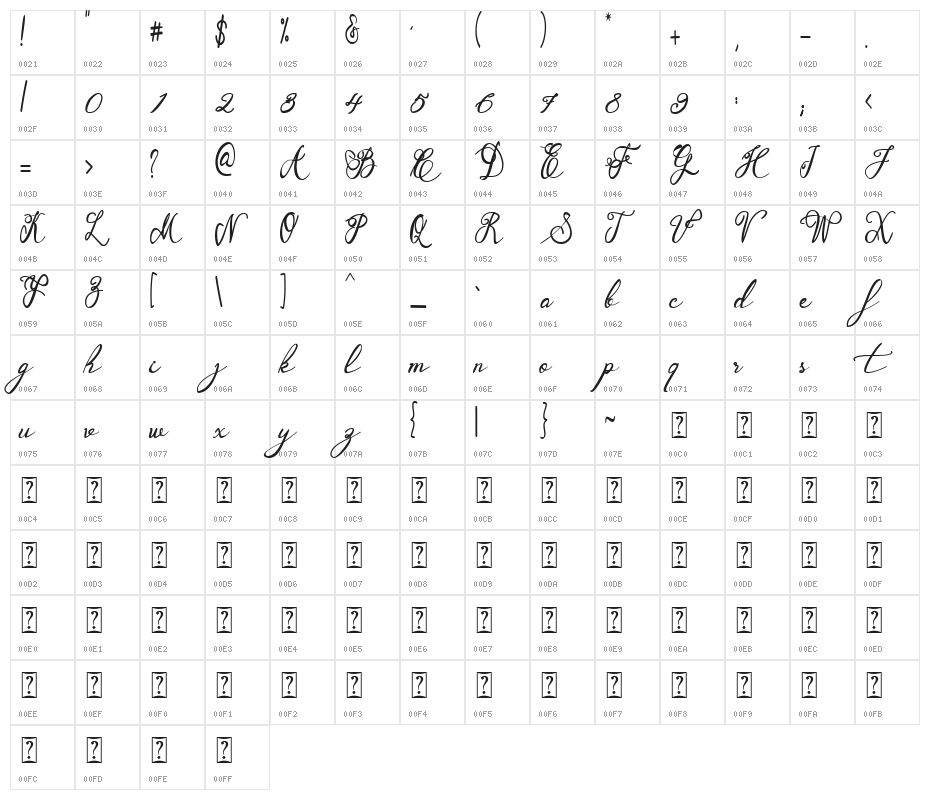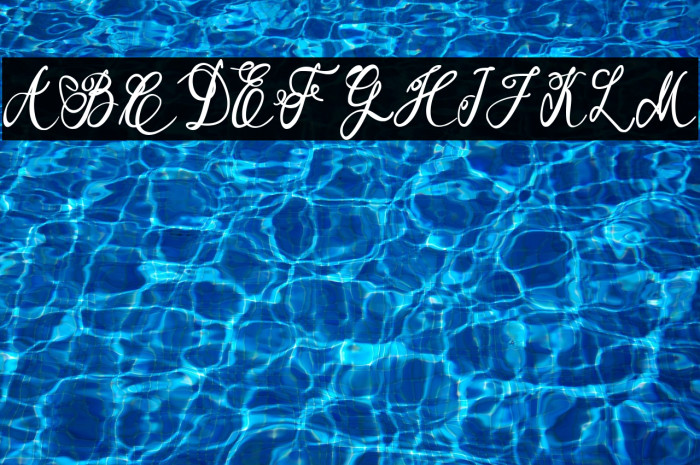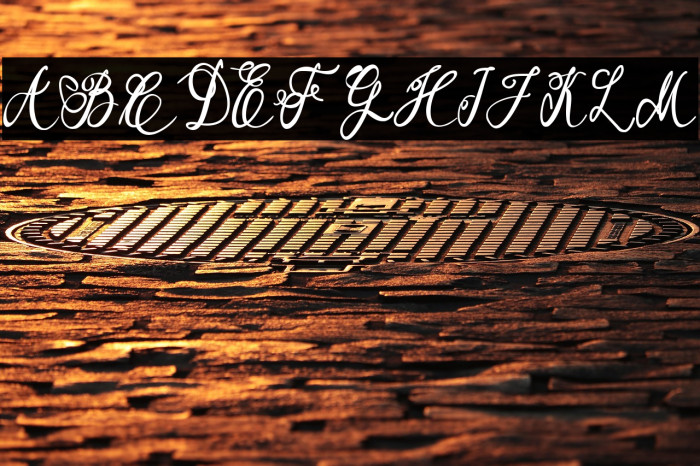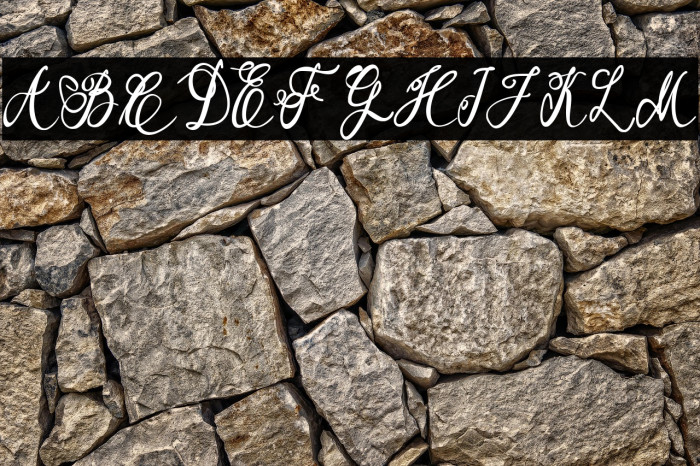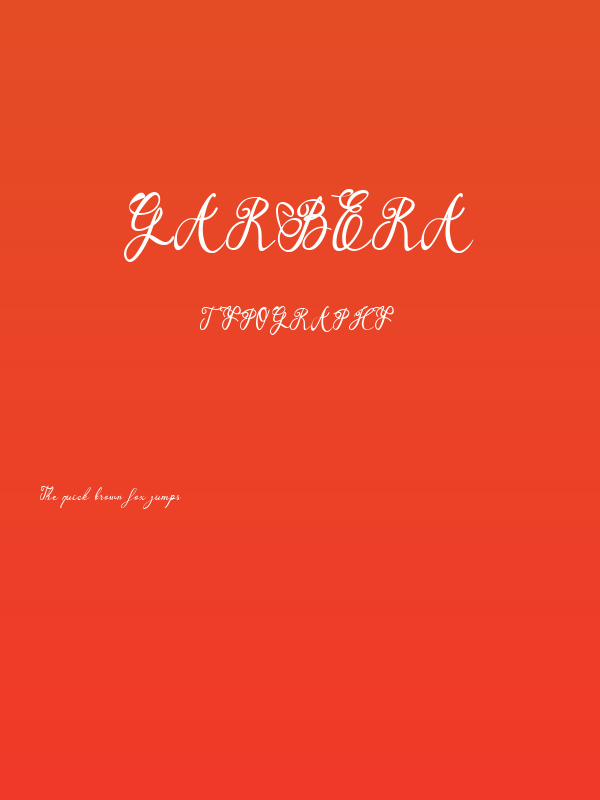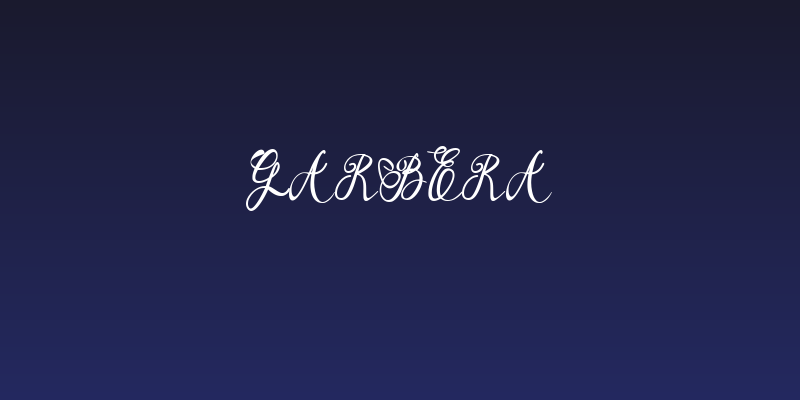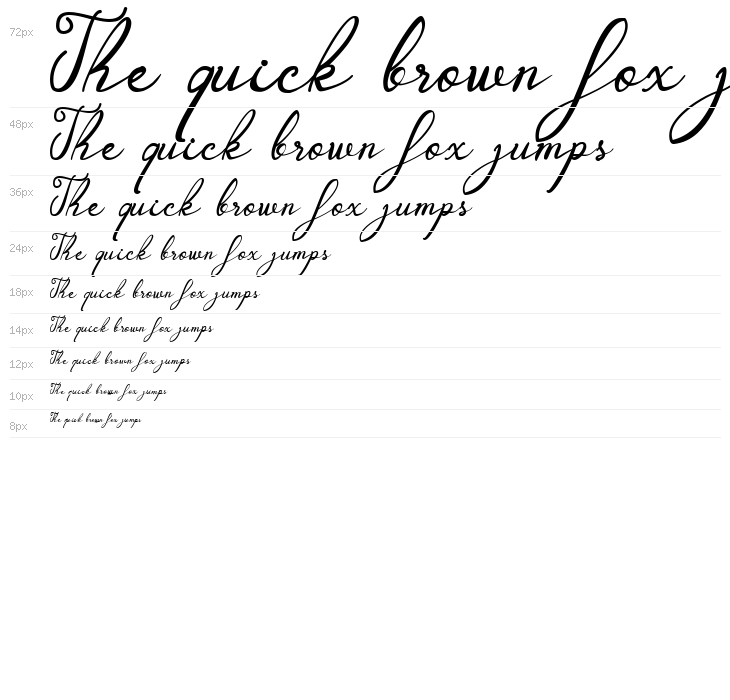
Garbera Font
Garbera Description
This elegant script font features a flowing, cursive style with intricate loops and swashes, giving it a sophisticated and artistic appearance. The uppercase letters are ornate, with elaborate flourishes that enhance their decorative quality. The lowercase letters maintain a smooth, connected flow, reminiscent of traditional calligraphy. The numerals and special characters are consistent with the overall style, offering a cohesive look across all glyphs. This font exudes a sense of grace and refinement, making it ideal for projects that require a touch of elegance.
| Proposed Projects | Ideal for wedding invitations, elegant branding, greeting cards, and luxury product packaging. |